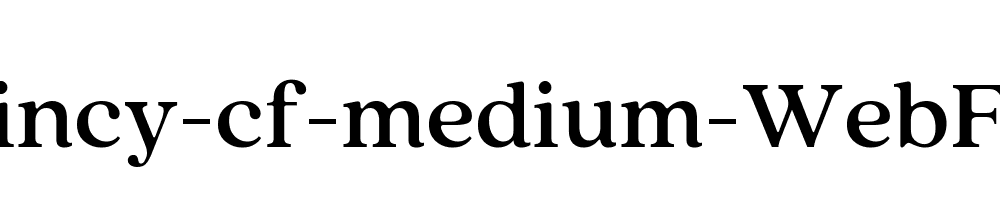
quincy-cf-medium-WebFont
About quincy-cf-medium-WebFont
The Quincy CF Medium WebFont exudes a sense of elegance with its sleek, curved APERTURES and defined ASCENDERS. The APEX of each letter adds a touch of sophistication, while the smoothly flowing ARC gives the font a modern feel. The ARMS of the characters are gracefully extended, adding to its overall sense of refinement. The intricate BILATERAL SERIFS and gentle BRACKETS provide a delicate balance to the font’s design, creating a beautifully crafted typeface. The open COUNTERS add a lightness to the letters, while the closed COUNTERS give them a solid, grounded appearance. The crisp CROSSBARS and subtle CROTCHES enhance the font’s clarity and readability, making it perfect for a wide range of design projects. The DESCENDERS elegantly taper off, giving the font a sense of completion and sophistication. The delicate EAR details bring a unique flair to the font, while the expressive EYES add a touch of personality. The ornate FINIALS and smooth FOOT details add a touch of beauty and elegance to each character. The fine HAIRLINES and subtle HEAD SERIFS add a touch of refinement to the font, making it a versatile choice for both print and digital design projects. The JOINTS are seamlessly integrated, creating a sense of cohesion and balance throughout the typeface. The sturdy LEGS and graceful LIGATURES give the font a sense of stability and flow, making it a reliable choice for a variety of design projects. With its smooth LINKS and NECKS, the font has a seamless and harmonious appearance, making it a perfect choice for elegant and sophisticated designs. The gentle LOOPS and stylish OVERHANGS add a touch of flair and whimsy to the font, making it a versatile and eye-catching choice for a wide range of design projects. The elegant SERIFS give the font a sense of tradition and timelessness, while the smooth SHOULDERS add a touch of modernity and sophistication. The strong SPINES and sophisticated SPURS give the font a unique and memorable appearance, making it a standout choice for a variety of design projects. The sturdy STEMS give the font a solid and reliable appearance, while the subtle STRESSES add a touch of dynamism and energy to each character. The graceful TAILS and refined TITTLES add a finishing touch to the font, giving it a sense of completion and sophistication. The stylish TERMINALS and elegant VERTEX details add a touch of flair and individuality to the font, making it a versatile and eye-catching choice for a wide range of design projects. The Quincy CF Medium WebFont is a typeface that effortlessly blends classic elegance with modern sophistication, making it a timeless choice for a variety of design projects. Its neutral expressiveness and elegant refinement make it a perfect choice for projects that require a touch of sophistication and class. With its serious yet friendly demeanor, the font is versatile enough to be used in a wide range of applications, from formal invitations to corporate branding. Its organic technic details and progressive design make it an ideal choice for projects that require a modern and fresh look. The Quincy CF Medium WebFont strikes the perfect balance between classic and progressive, making it a familiar yet daring choice for designers looking to make a statement. Its discreet loudness and warm coldness give it a versatile appeal that can adapt to any design style or project. Experience the timeless elegance and modern sophistication of the Quincy CF Medium WebFont in your next design project.